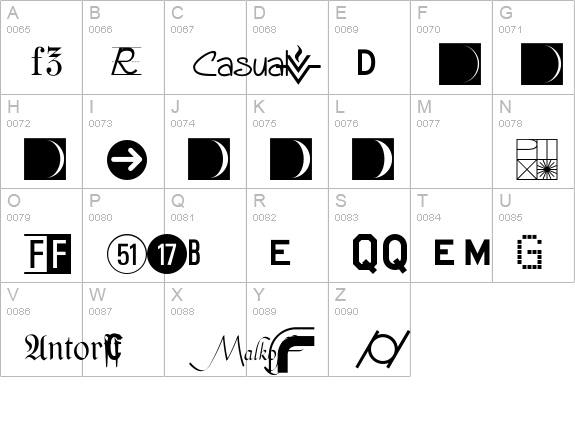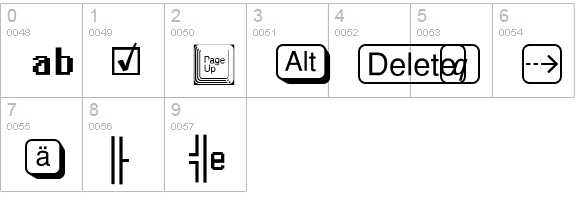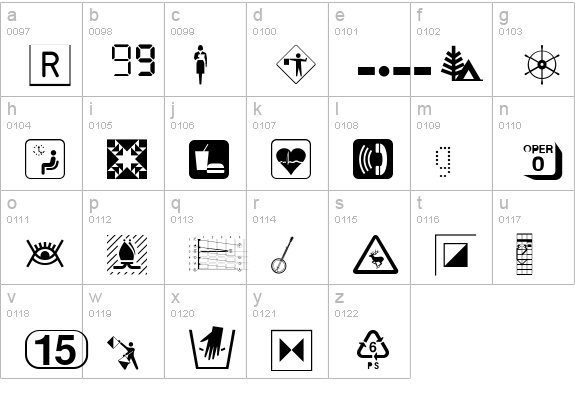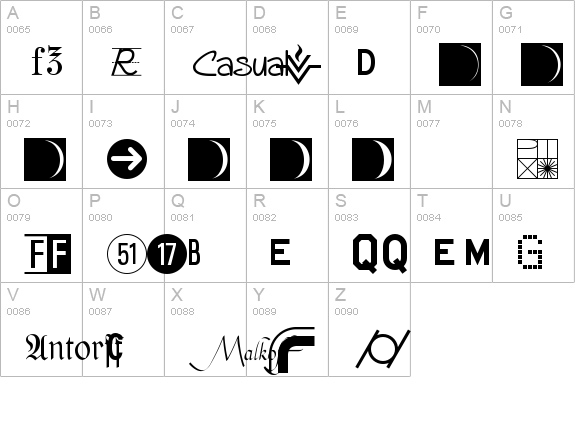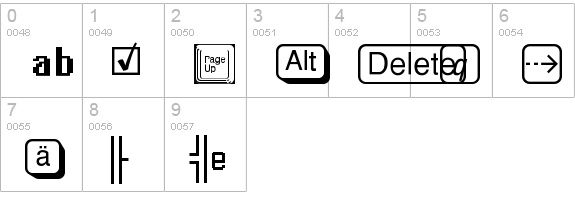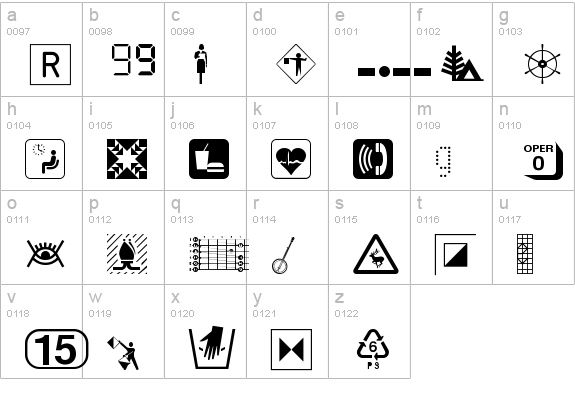
PIXymbolsDingbatsBold Font Details
PIXymbolsDingbatsBold is a stunning font that is sure to add a touch of creativity and excitement to any design project. With its bold and eye-catching symbols, this font is perfect for adding emphasis, highlighting important information, or simply adding a fun and playful element to your work. This font is not only visually appealing, but it is also incredibly versatile. Whether you are designing a logo, creating a poster, or even sprucing up your social media graphics, PIXymbolsDingbatsBold will provide you with a wide range of unique and attention-grabbing symbols to choose from. One of the best things about PIXymbolsDingbatsBold is that it is available for free download at FontsMarket.com. This means that you can easily access and start using this amazing font without having to spend a dime. Simply head over to FontsMarket.com, search for PIXymbolsDingbatsBold, and download it to your computer. It's that easy! So why wait? Start exploring the countless possibilities that PIXymbolsDingbatsBold has to offer and take your designs to the next level. Whether you are a professional designer or just someone who loves to get creative, this font is a must-have in your collection. Download PIXymbolsDingbatsBold today and watch your designs come to life!